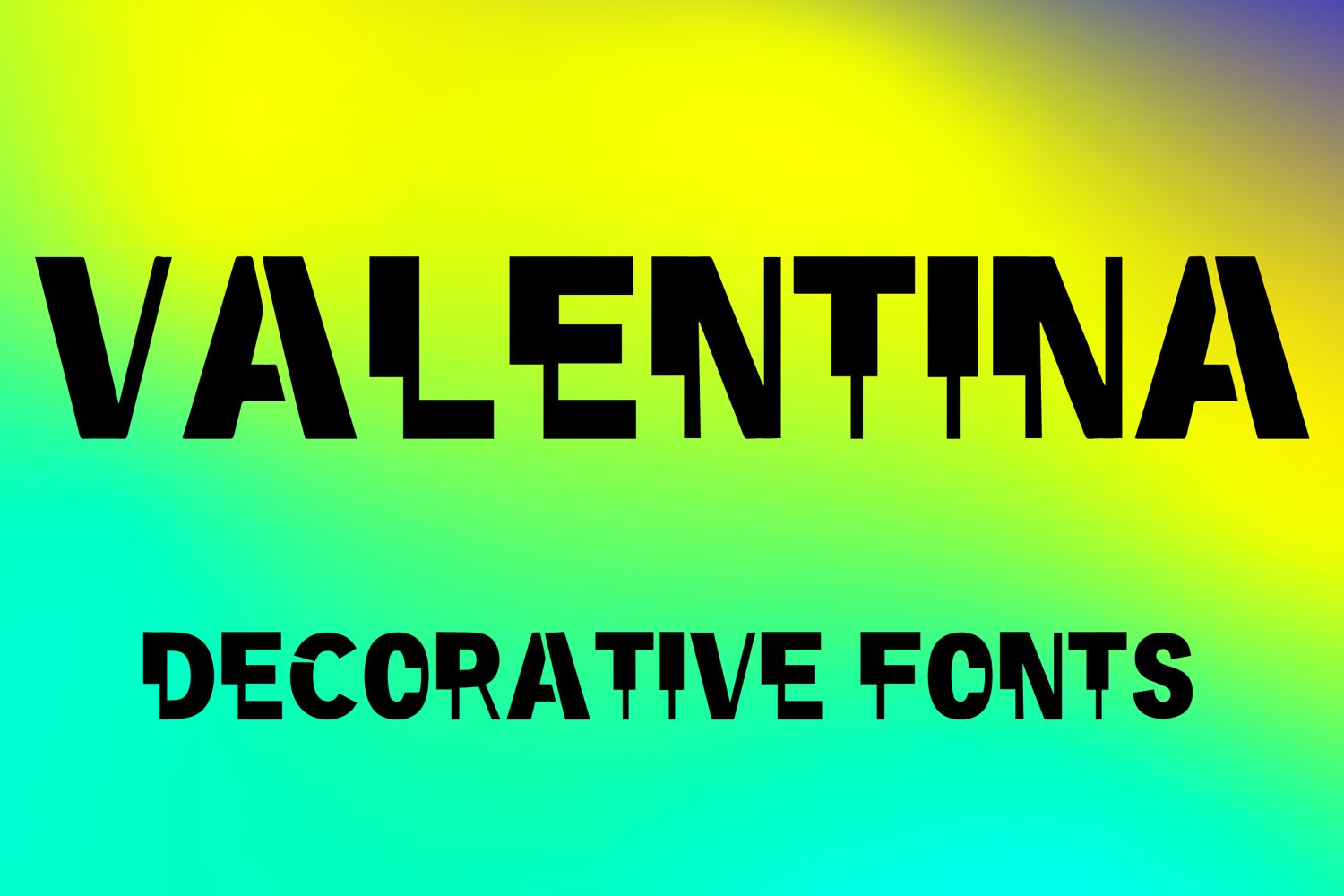
VALENTINA
VALENTINA is a bold decorative display font with a clean geometric style and confident modern character. Its uppercase letterforms feature strong blocky shapes, sharp angled cuts, and striking stencil-like details that create a powerful, stylish, and eye-catching look. Designed with uppercase letters A–Z and numbers 0–9, VALENTINA is perfect for branding, posters, packaging, logos, headlines, and social media graphics that need a bold and memorable statement.